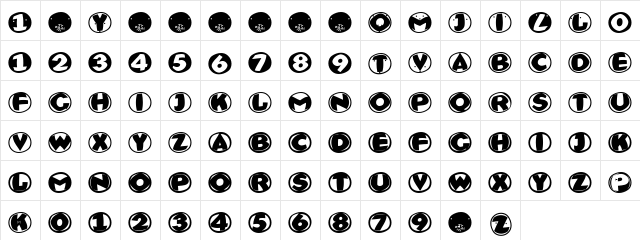
EaglesButtons Regular
Design Context for EaglesButtons Typeface
EaglesButtons is a composed and adaptable typeface that performs quietly and consistently across a wide range of design contexts.